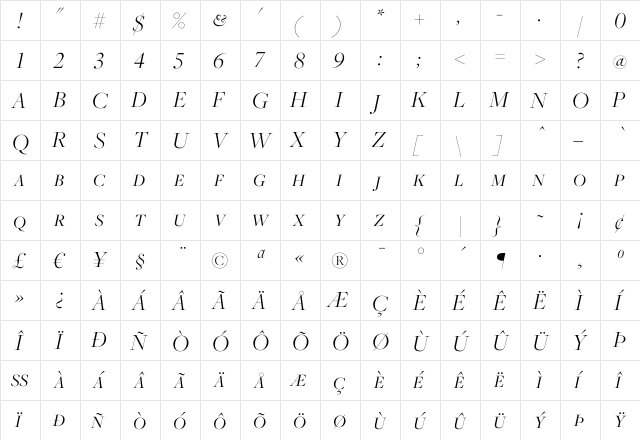
Freight Big Light Italic SC
| Foundry | Joshua Darden & Phil's Fonts, Inc |
| Designer | Joshua Darden |
Design Context for Freight Typeface
Freight is a composed and adaptable typeface that performs quietly and consistently across a wide range of design contexts. Its italic angle brings a sense of urgency and motion to the letterforms. The delicate stroke weight brings airiness and refinement to layouts.